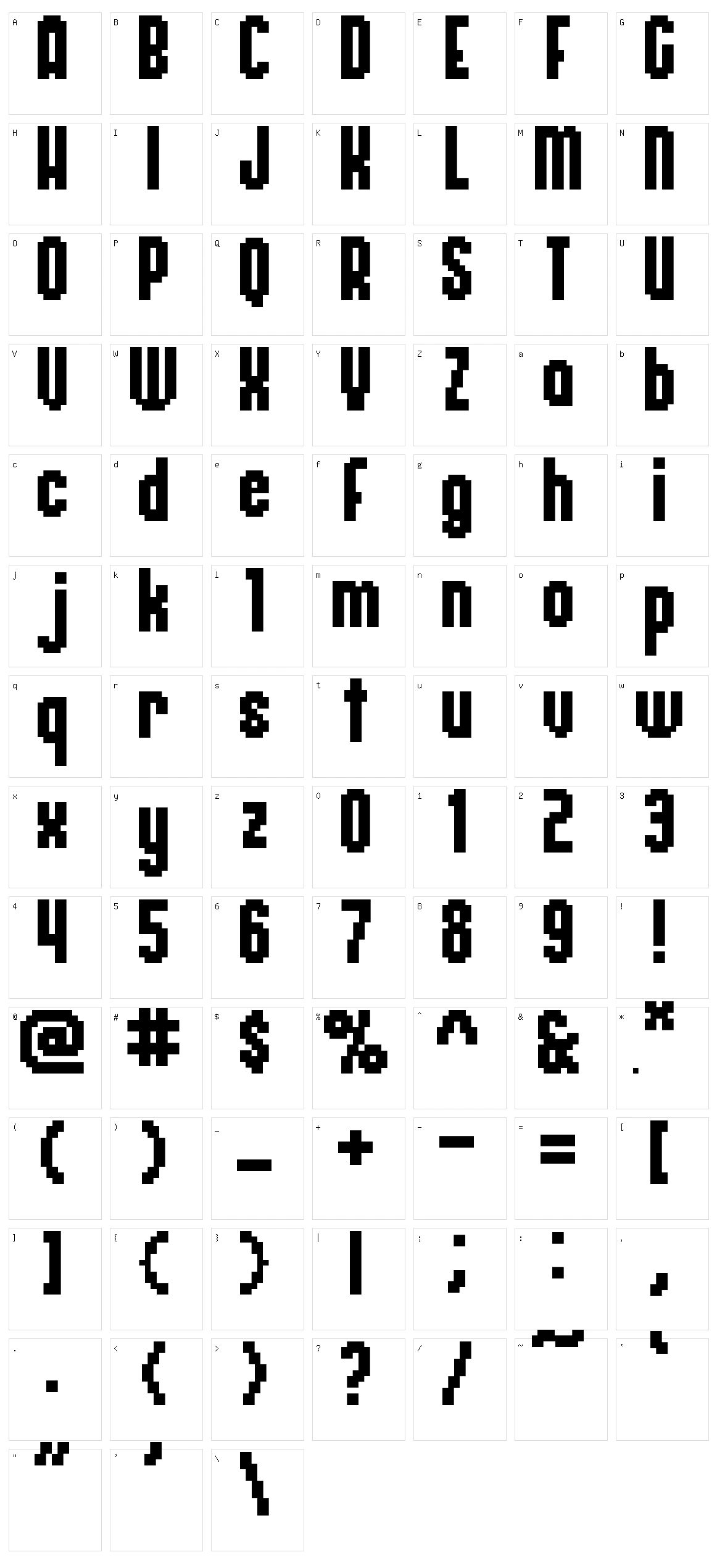
Relativity
Designed by: Mirz123
Relativity Font
Font-family designed and created by Mirz (Michelle Lehmann)
Inspired by the font Armor Piercing by Nate Piekos available at Blambot.com
This font includes 4 pixel fonts. This fonts is best used at 6pt (8px) in most graphic programs.